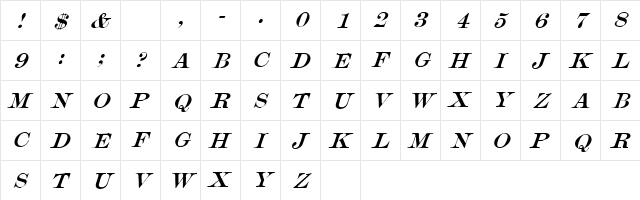
Mercantile Oblique HPLHS
Design Context for Mercantile Oblique Typeface
Mercantile Oblique offers clean, dependable letterforms without strong stylistic allegiance, making it a practical choice for designers who need flexibility. The slanted form adds forward momentum and visual energy.
Pro Tip: Use Mercantile Oblique for emphasis, pull quotes, and subheadings where its slanted energy can add rhythm to the layout.